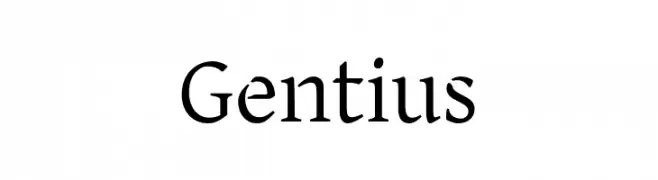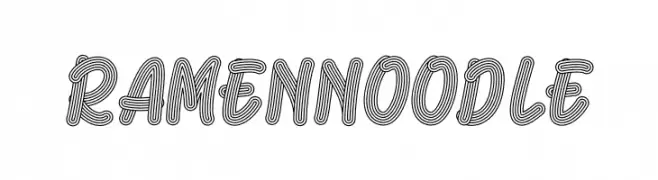
A playful, bold font with rounded edges and a whimsical style.
A bold, italic script font with high contrast and dynamic flow.
A classic serif font with elegant strokes and balanced design.
A classic serif font with elegant, traditional letterforms and medium contrast.
A playful, hand-drawn font with a bold, quirky style and irregular baseline.
A flowing, cursive font with elegant, interconnected letters.
A bold, outlined font with a modern and playful aesthetic.
A graceful script font with fluid, interconnected strokes and elegant flourishes.
A playful, noodle-inspired font with bold, intertwined strokes and a decorative style.